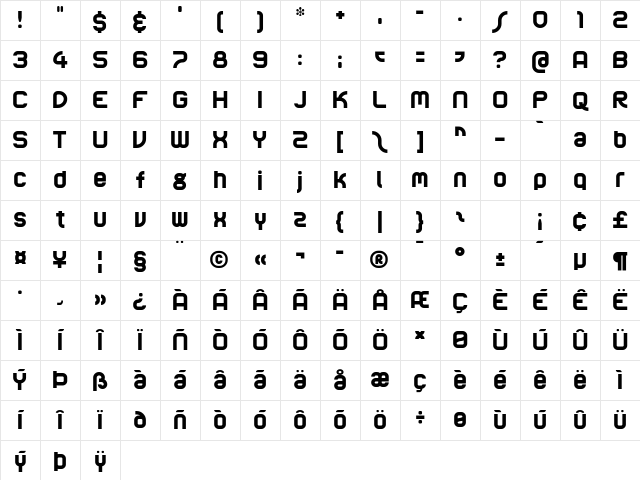
Audex Regular Free Font
Audex Regular
Foundry: GGBotNet
Designer: GGBotNet
Design Context for Audex
Audex is a composed and adaptable typeface that performs quietly and consistently across a wide range of design contexts.